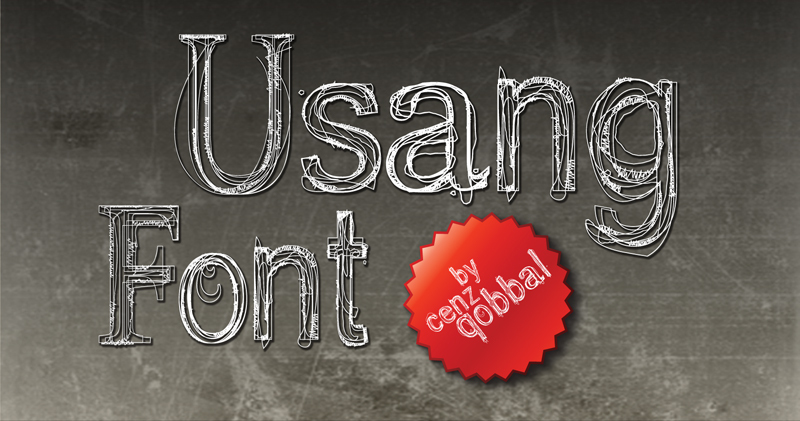
Usang by Cenz Qobbal is a free eroded serif display font with tall classical capitals and a restless, sketched surface. Multiple broken contours gather around the main strokes, making the letters look repeatedly traced, scraped, and slightly misregistered.
Decay and uneasy historical drama make it well suited to horror posters and experimental album covers. Its stately proportions also fit distressed book jackets or theatrical event graphics. The stray hairlines can merge with scratched photographs and etched illustrations, turning the lettering into part of the worn image.